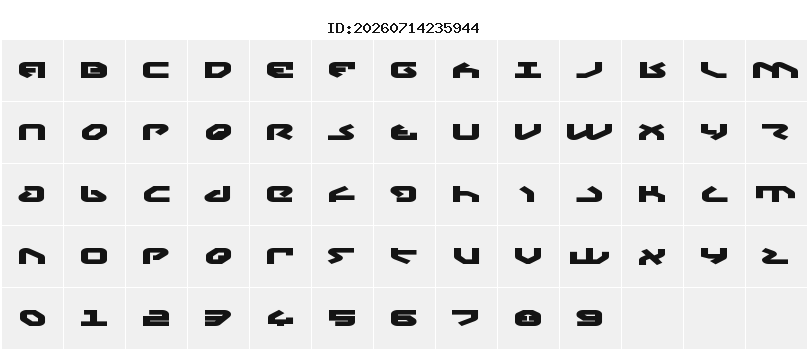
Yahren Expanded Bold Preview
• Font Name: Yahren Expanded Bold
• Font Style: Expanded Bold
• Font ID: Yahren Expanded Bold
• Full Font Name: Yahren Expanded Bold
• PostScript Name: YahrenExpandedBold
• Designer: Dan Zadorozny
About Yahren Expanded Bold.ttf
Yahren Expanded Bold.ttf is a modern, elegant sans-serif font designed for ultimate readability and visual harmony. Perfect for branding, headlines, web design, and print materials.